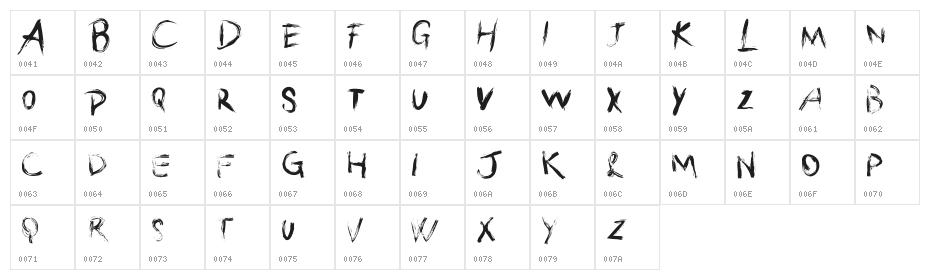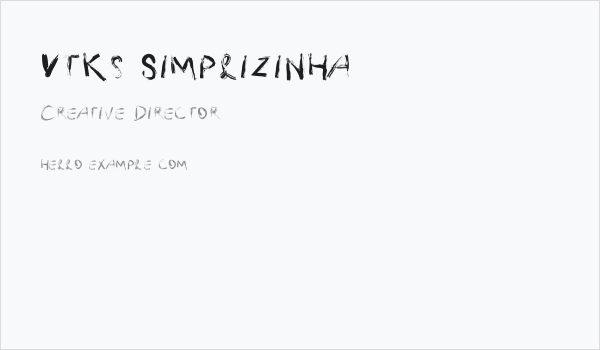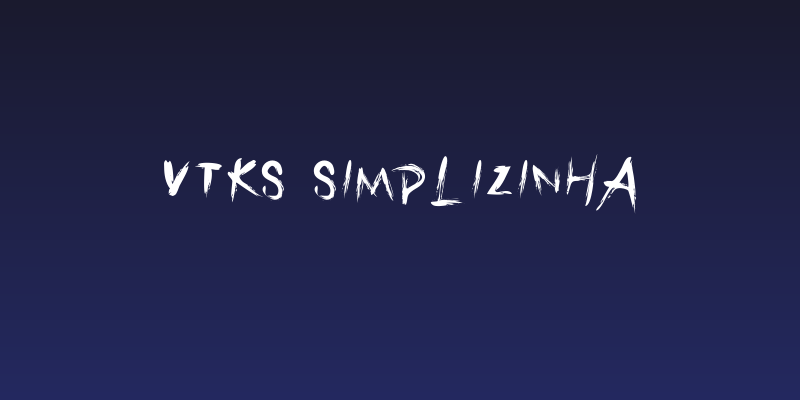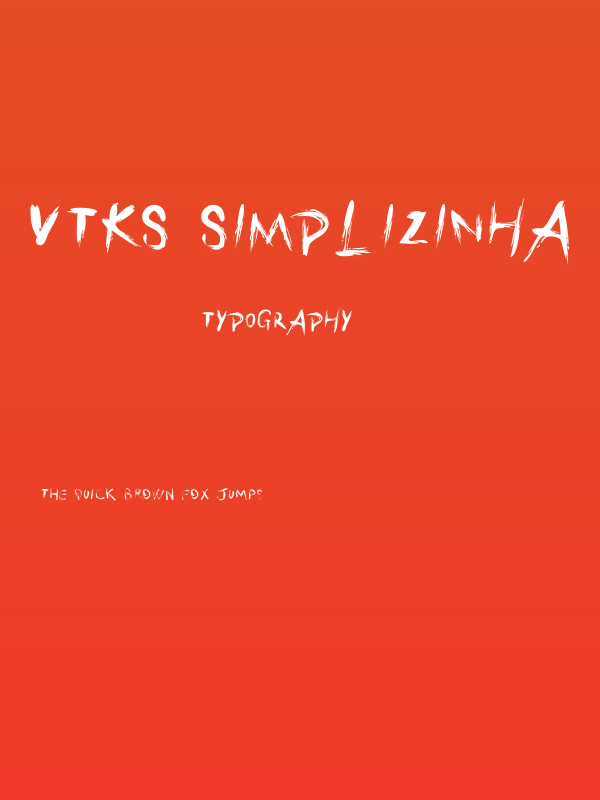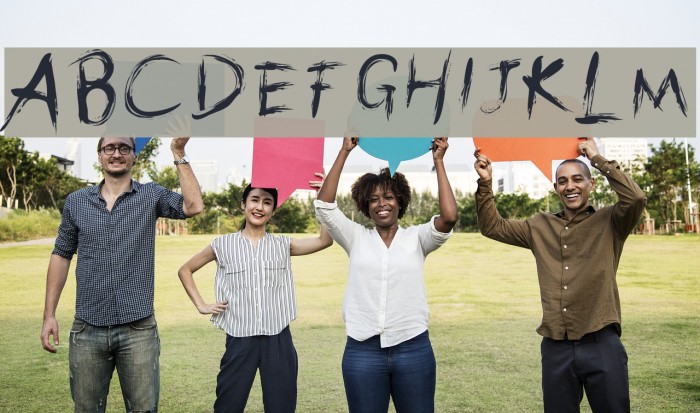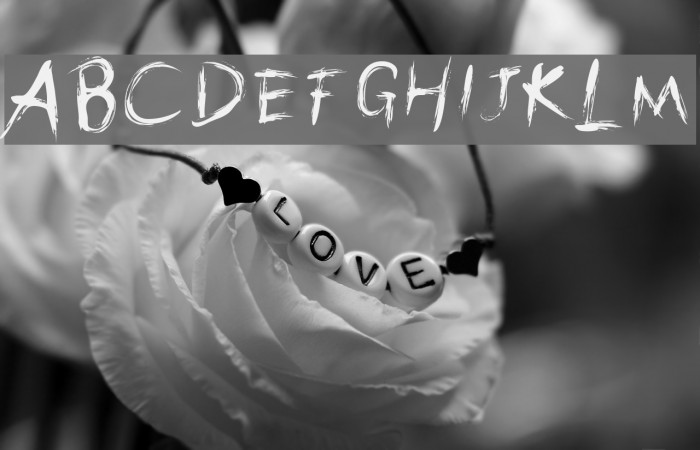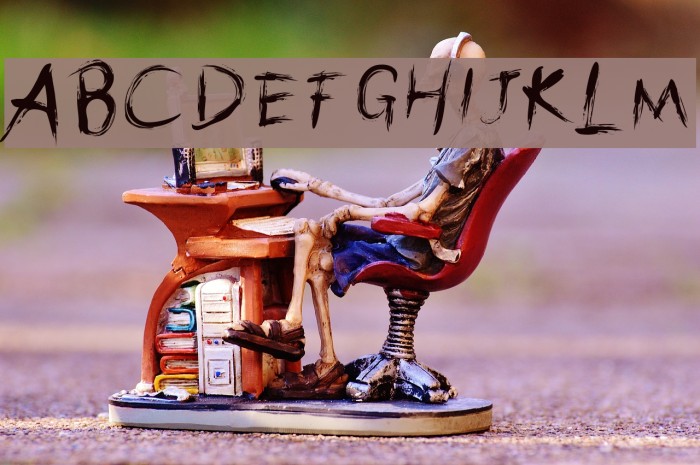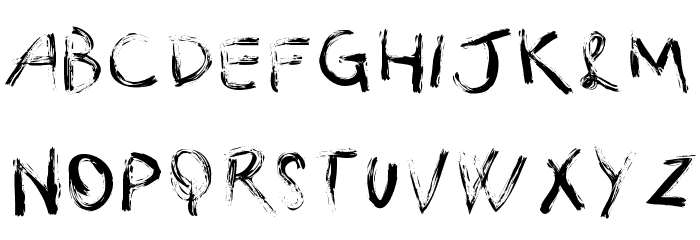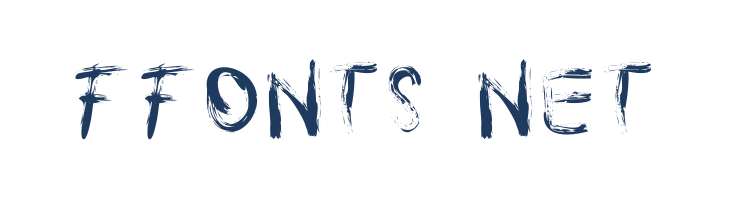
Vtks Simplizinha Font
This font features a bold, expressive style with a hand-painted appearance. The strokes are uneven and dynamic, giving it an energetic and artistic feel. Each character is unique, with varying thicknesses and a slightly distressed look, reminiscent of brush strokes or ink splatters. The overall design is highly decorative, making it stand out with its raw and organic aesthetic. The uppercase and lowercase letters maintain a consistent style, while the numbers and special characters complement the overall theme. This font is ideal for projects that require a bold statement and a touch of creativity.
| Overall Style | Artistic, Decorative |
| Proposed Projects | Ideal for posters, album covers, artistic branding, and creative advertising. |